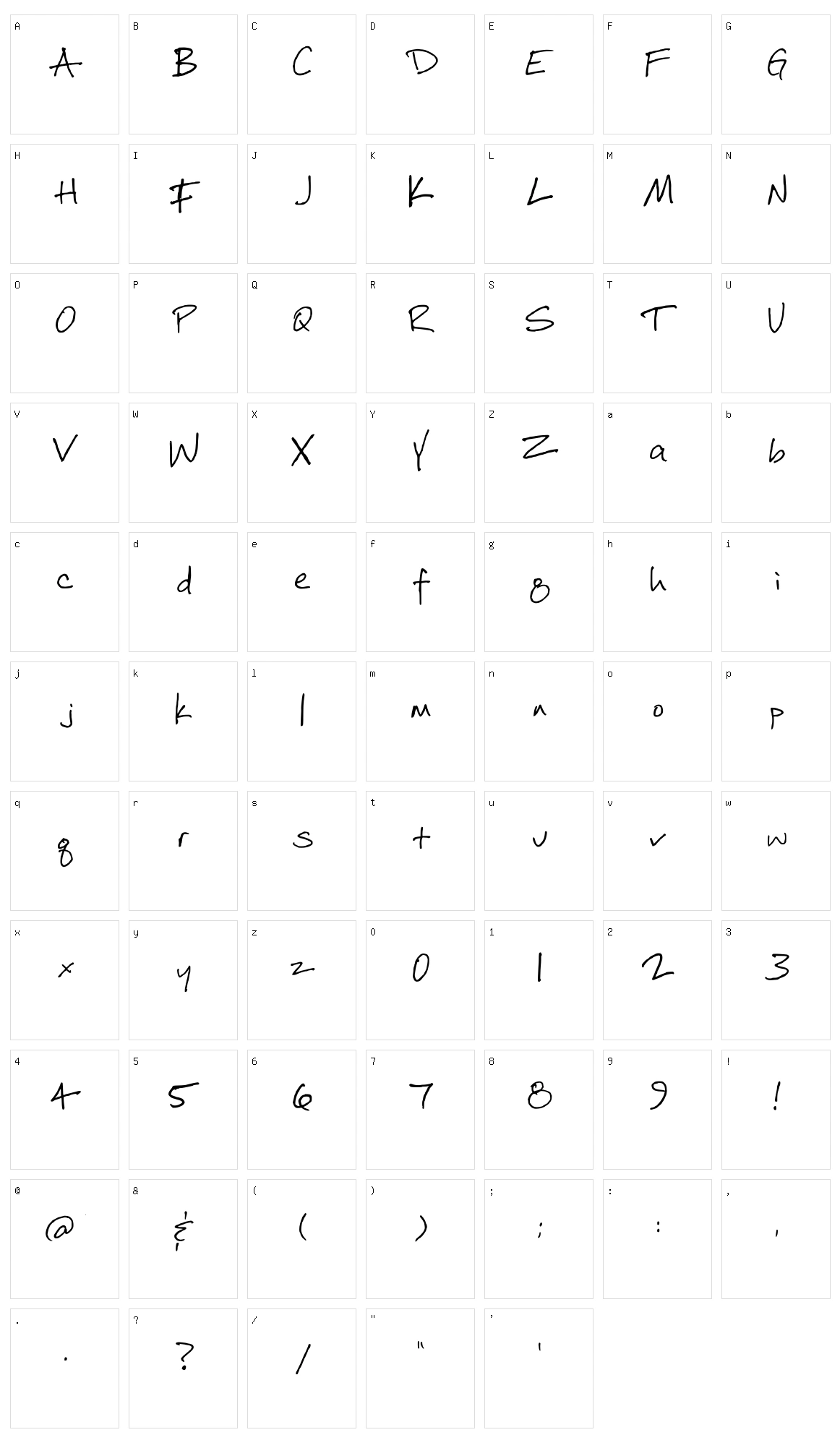
The free font Duncans Hand is carefully designed by Duncan Campbell, showcasing a thoughtful balance of creativity and usability and falls under the Script font style. When you download the ZIP file, it contains only 14.82 KB of font files, making it lightweight and quick to download. Please review the license details below to understand permitted usage and distribution rights. If license information is not available, we recommend using this font for personal projects only or contacting the author directly for commercial usage permissions.